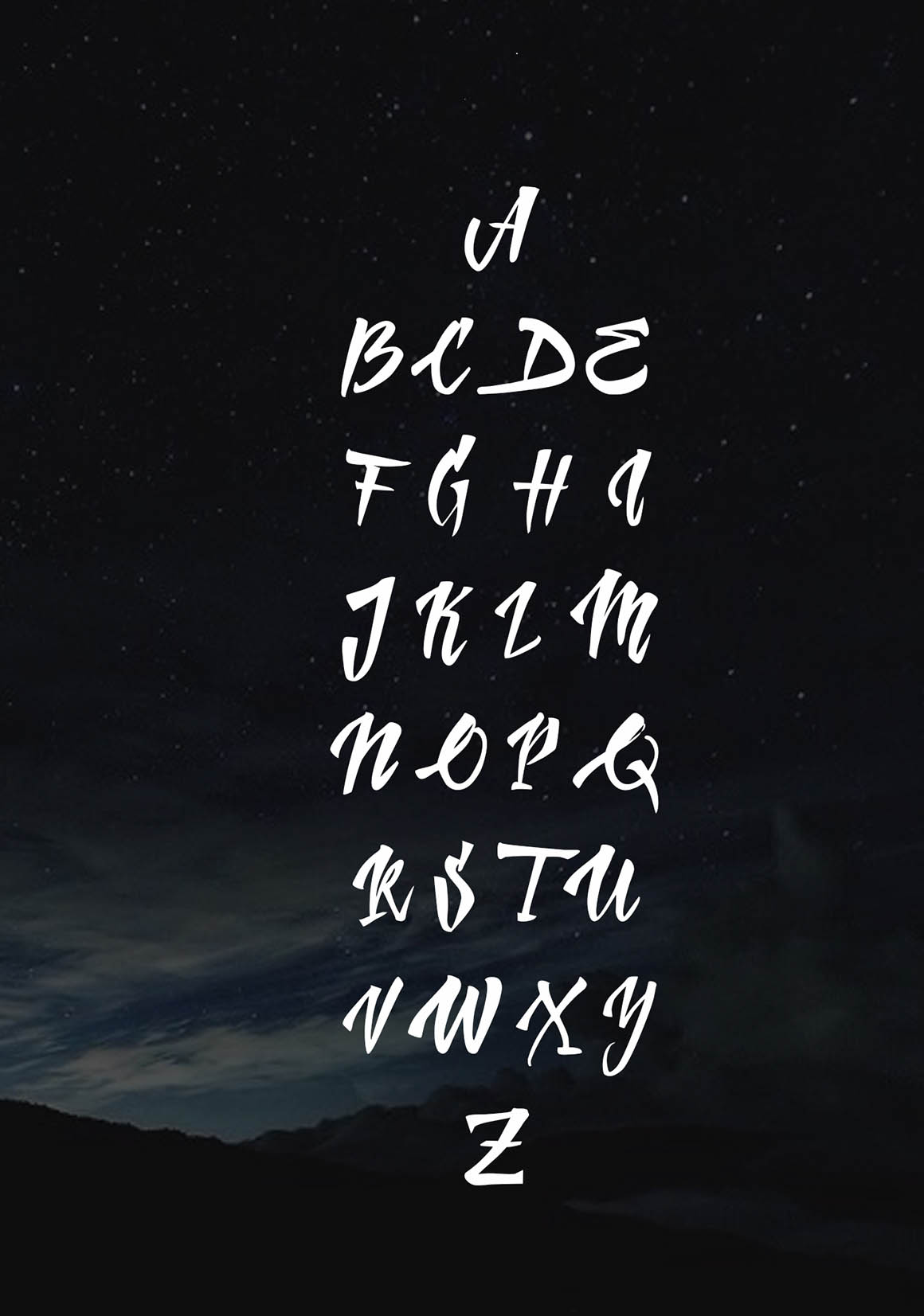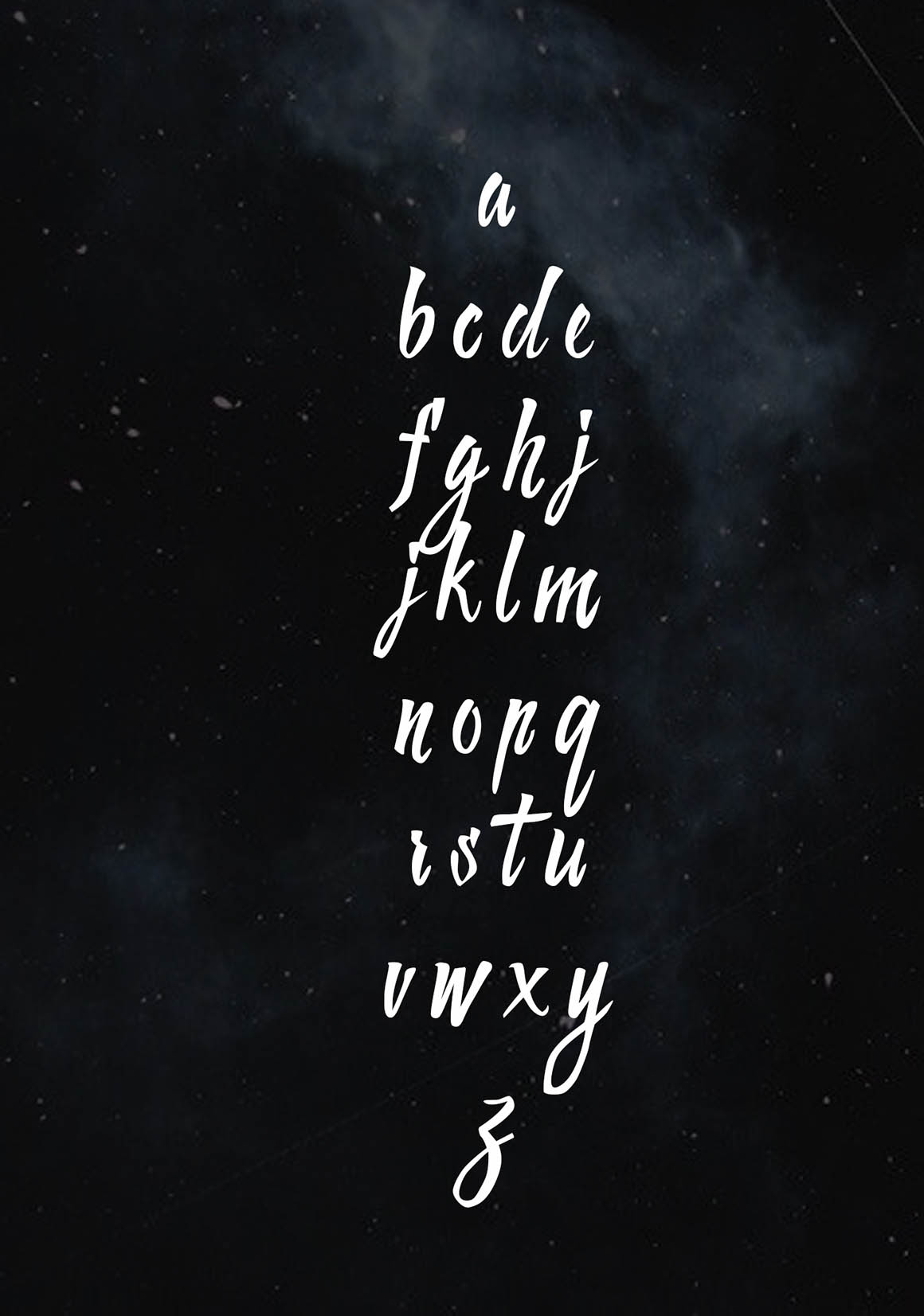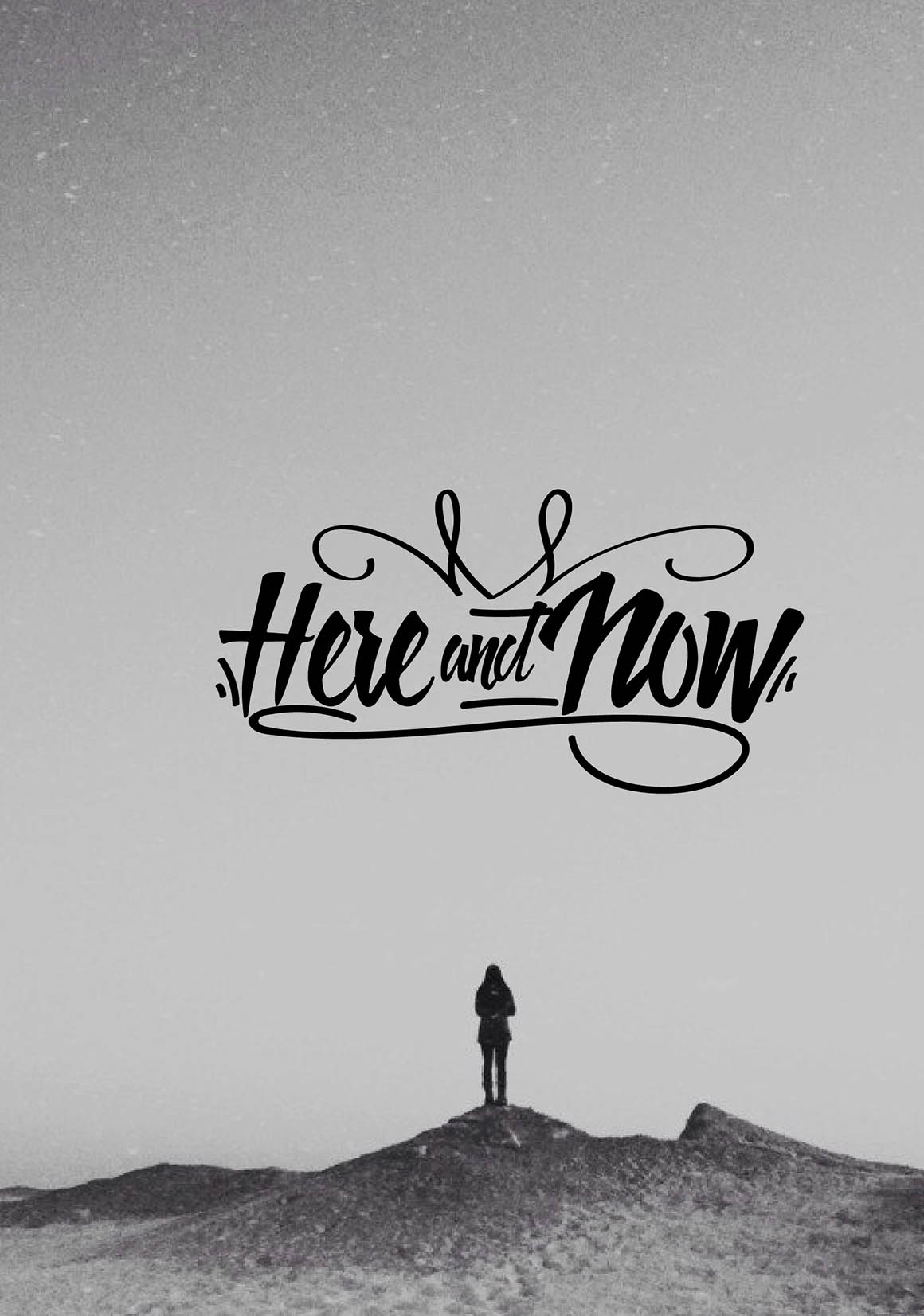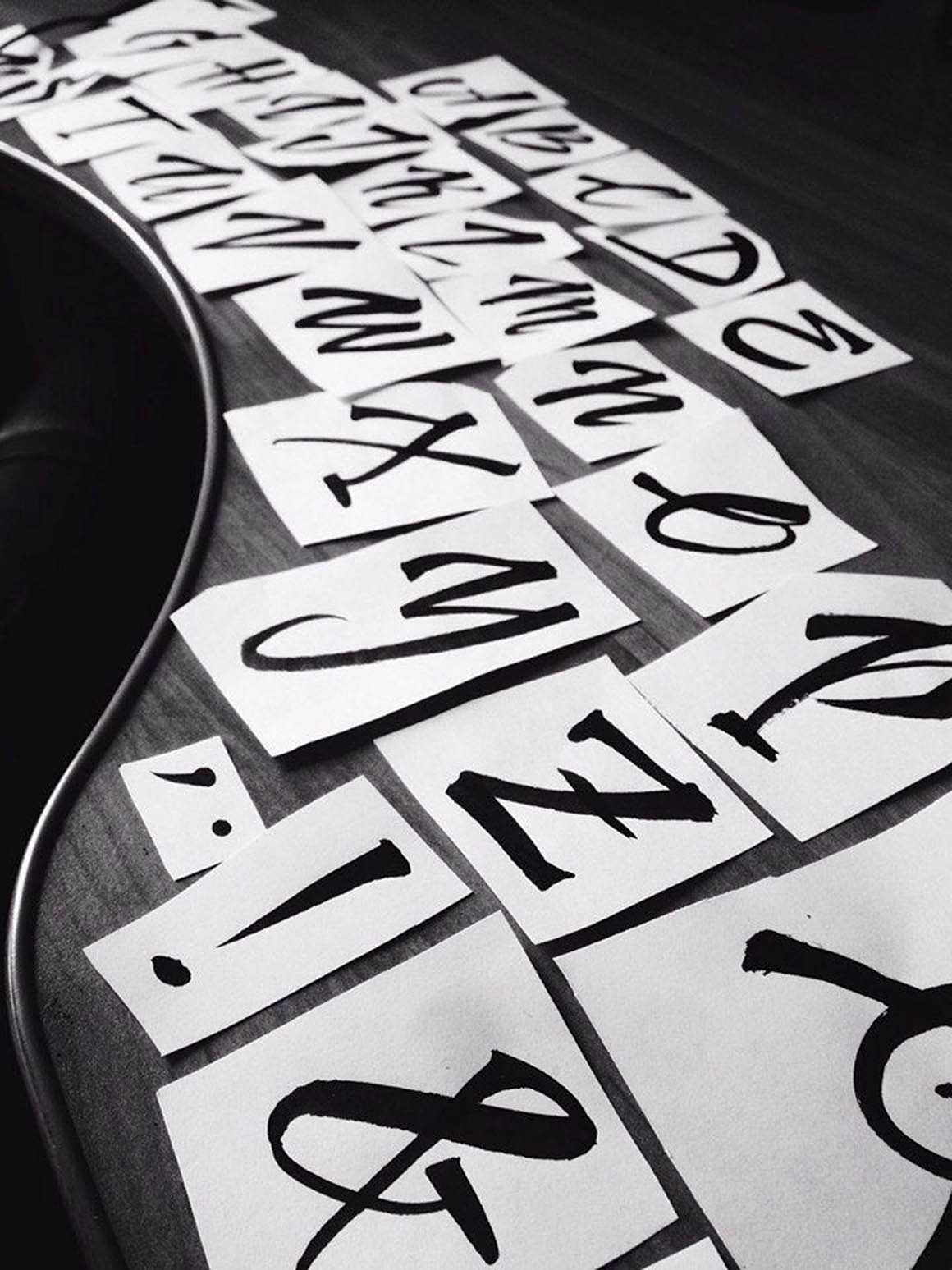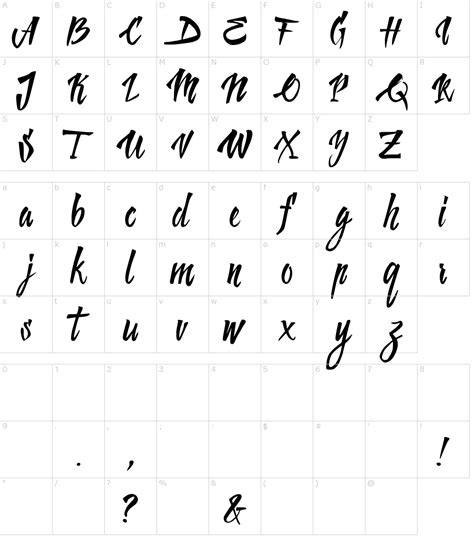
Why You Should Pay Attention To Handletter Fonts In 2023
The world of graphic design is constantly evolving and 2023 is no exception. One of the biggest trends in this year’s digital landscape is the rise of handletter fonts. Handletter fonts, also known as brush lettering and calligraphy, are fonts that are created by hand and feature a unique, artistic touch. They are perfect for graphics, logo designs, and other digital projects and their popularity is only increasing as more and more designers are turning to these unique fonts to create unique and eye-catching designs.
Handletter fonts are popular for a number of reasons. For starters, they are incredibly versatile and can be used in a variety of projects. From logos to websites to banners and more, handletter fonts can be used to create a variety of designs. They also provide an artistic touch to any design and can really make it stand out from the crowd.
One of the biggest advantages of handletter fonts is that they are incredibly easy to use. All you need is a pen and paper and you’re ready to start creating your own unique designs. You can also find a huge selection of handletter fonts online, which makes it easy to find the perfect font for your project. And since they’re so easy to use, you can experiment and find the perfect font for your project.
Handletter fonts can also be used to create custom designs. This means that you can create a unique design that reflects your own personal style and taste. This makes them perfect for creating logos, websites, and other digital projects that are completely unique.
Tips for Using Handletter Fonts
Using handletter fonts can be a great way to create one-of-a-kind designs, but it can also be a bit tricky. Here are a few tips for using handletter fonts in your designs:
1. Stick to One Font
When using handletter fonts, it’s important to stick to one font throughout your design. This will ensure that your design looks cohesive and professional. You don’t want to use too many different fonts, as this can make your design look cluttered and unprofessional.
2. Experiment with Different Styles
Handletter fonts come in a variety of different styles. So take some time to experiment with different styles to see what works best for your project. You can also mix and match different styles to create a unique and eye-catching design.
3. Pay Attention to Size
When using handletter fonts, it’s important to pay attention to size. Make sure that the fonts you choose are not too big or too small. If the fonts are too big, they can make your design look cluttered and unprofessional. If they are too small, they can be difficult to read.
4. Use Space Wisely
Using space wisely is one of the most important things when it comes to using handletter fonts. Make sure that you leave enough space between each letter so that your design looks balanced and visually appealing.
Handletter fonts are a great way to add a unique, artistic touch to any design. They are incredibly versatile and can be used in a variety of projects. Plus, they’re incredibly easy to use and you can find a huge selection of handletter fonts online. So if you’re looking to create a unique design in 2023, be sure to give handletter fonts a try!